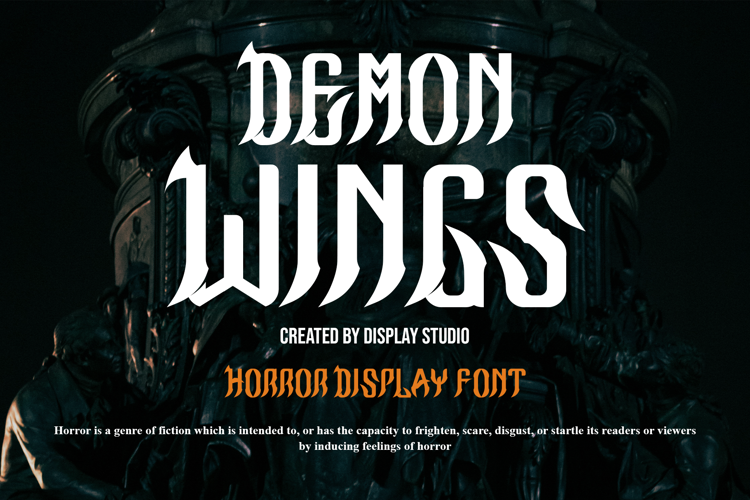
Demon Wings Font
About Demon Wings Font
Introducing our new release, Demon Wings Horror Display Font. This typeset is perfect for brand logo, invitations, greeting card, or even any kind of project. With multilingual feature and style variations, this typeface would further enhance the aestethical aspect of your work.